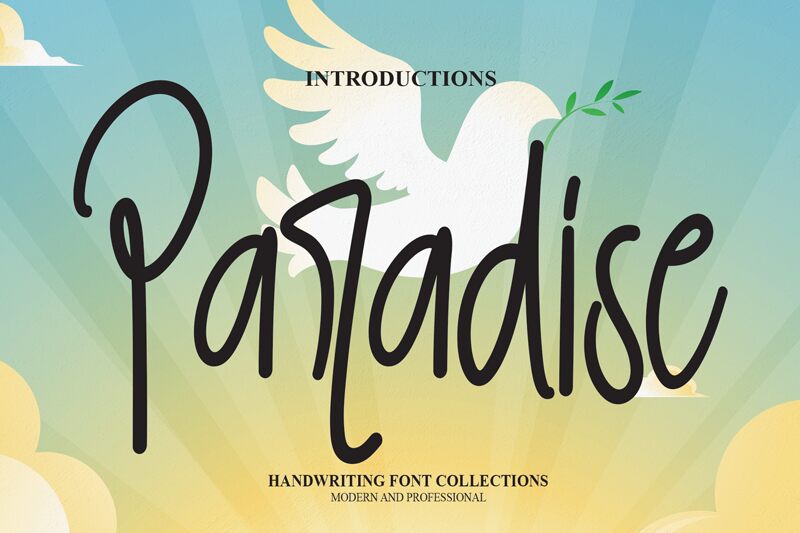
Paradise
Paradise is a light and condensed handwritten font designed by scratchones. With its charming and whimsical style, this font is perfect for a variety of creative projects. The thin, delicate strokes of Paradise make it ideal for elegant wedding invitations, while its playful nature lends itself to children's book illustrations or greeting cards. The condensed width allows for more text to fit in smaller spaces, making it a great choice for menu designs or social media graphics. Give your designs a touch of paradise with this unique and versatile semi-bold font.
the latest style letters are perfect for wall displays, wedding invitations, social media post logos,
advertisements, product packaging, product designs, labels, photography, watermarks, invitations, stationery,
and any project that requires taste handwriting.